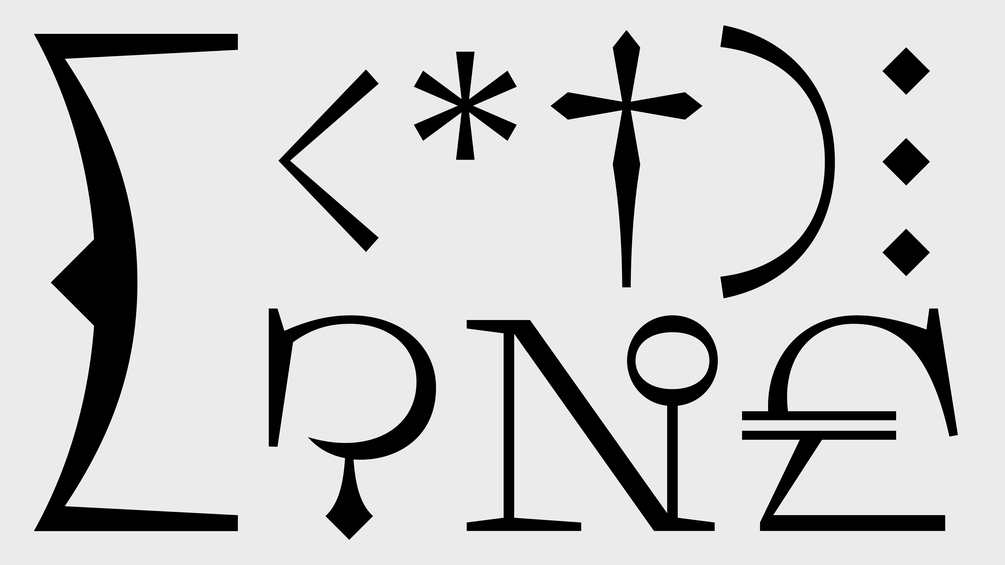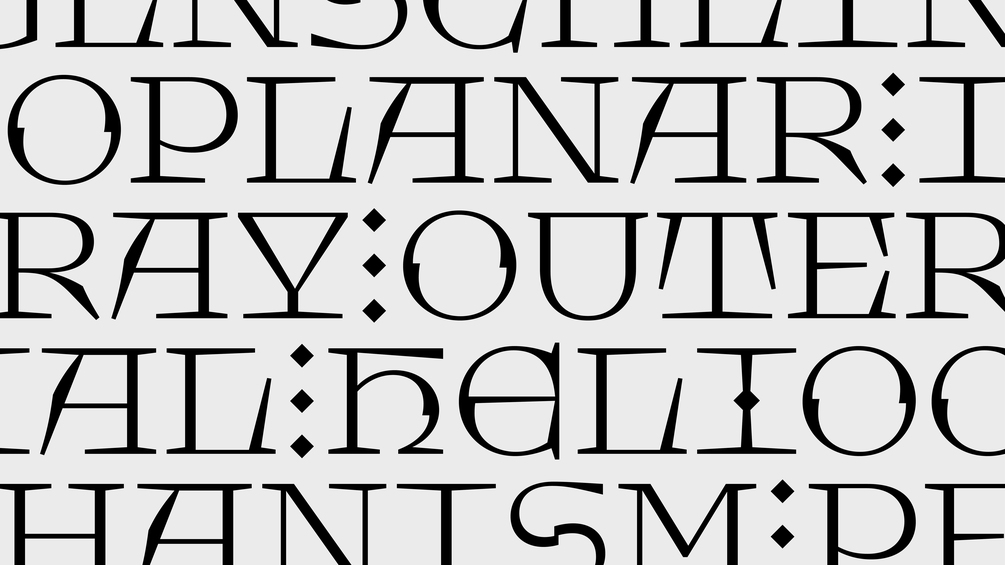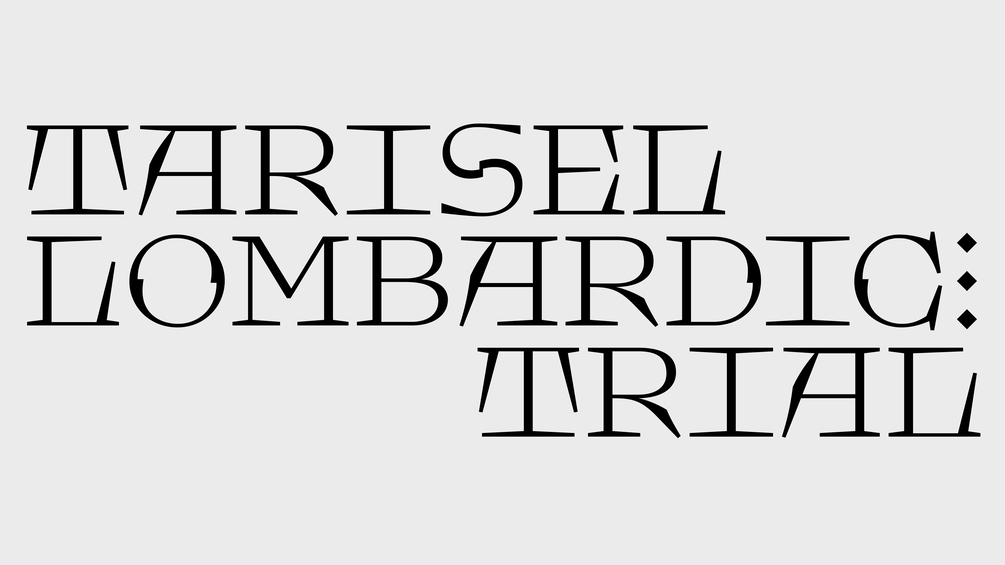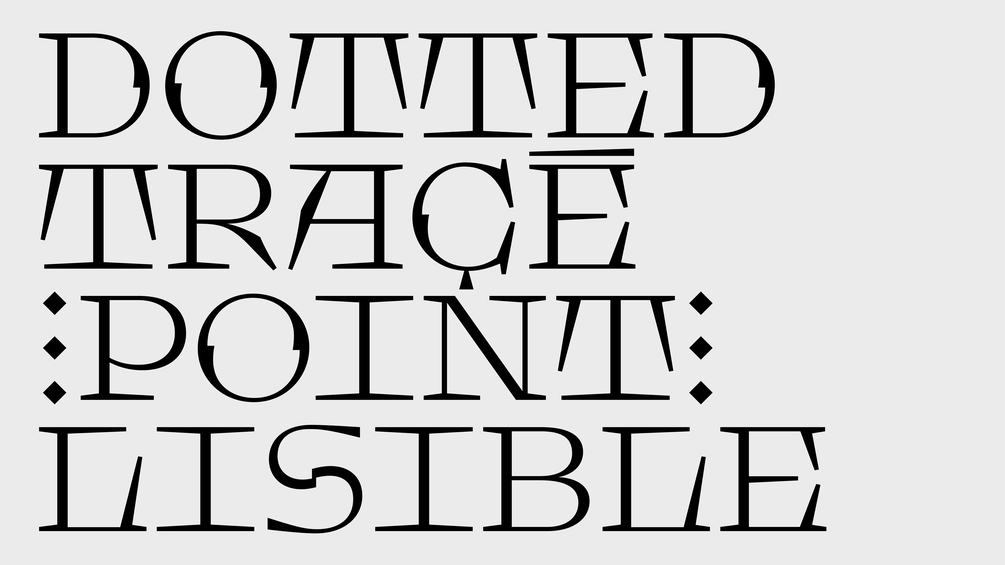
Tarisel Lombardic Light (Trial)
Not yet ready to go full medieval? Try out Tarisel Lombardic capitals for free. This trial font contains the basic glyphset, without the stylistic alternates or opentype features available in the paid license.